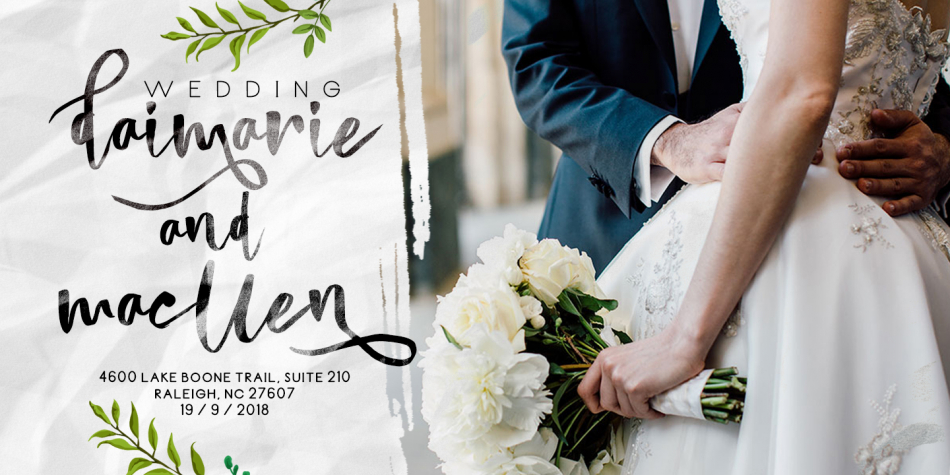
| Designed by Suandana Ipandemade, Violaceous Brush Script is a brush script and modern calligraphy font published by madeDeduk. |
Really excited to introduce Violaceous is a brush script! Violaceous perfect for all your designs project.
Features - UPPERCASE - lowercase - Number & Symbol - International Glyps - Alternative lowercase (alt01-alt02-alt03-alt04alt05-alt06-alt07) - Ligature If you need anything else just shoot me on email at: dedukvic@gmail.